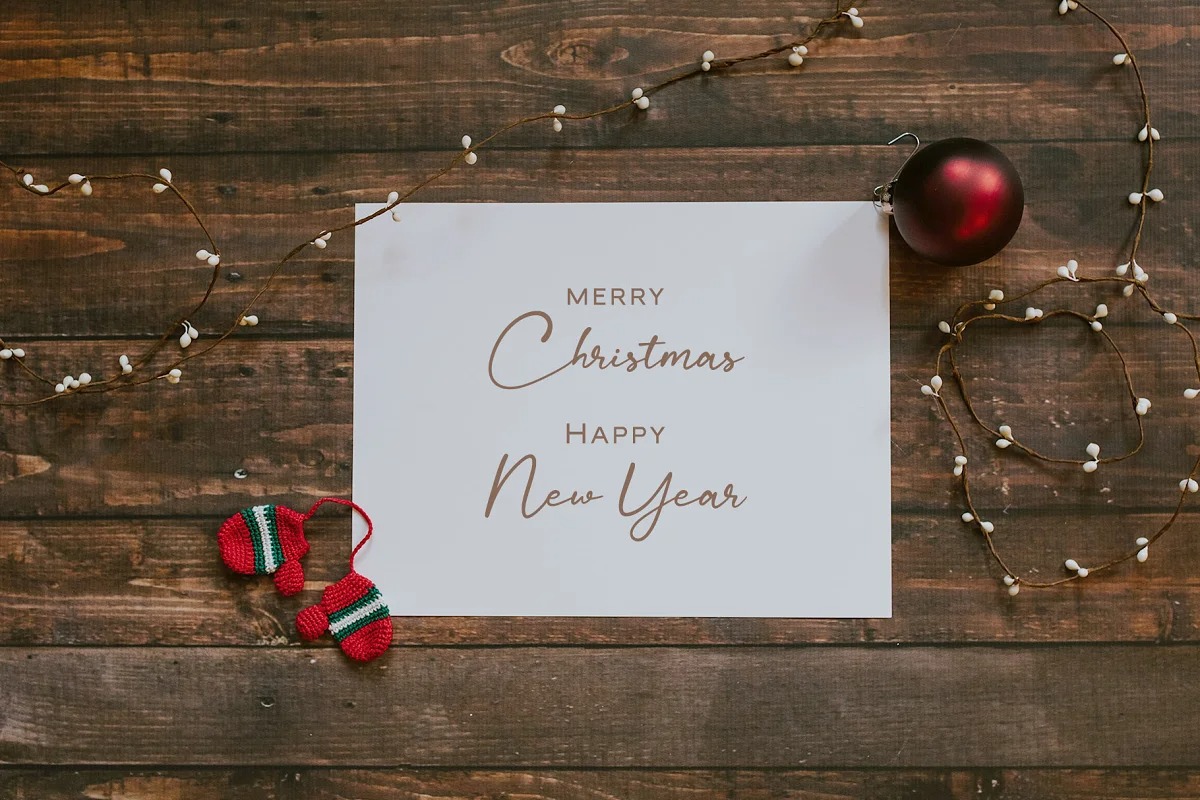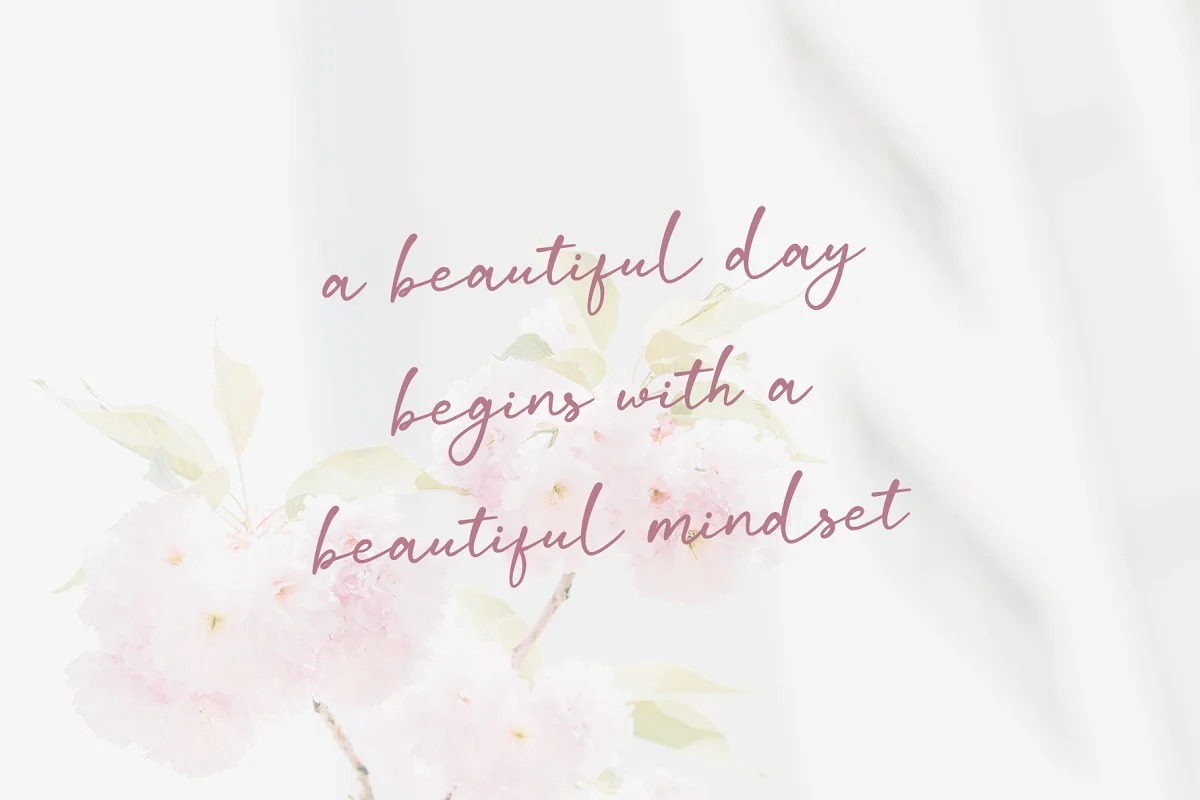
Calaya Font
Calaya Script Font
This is a line font with a feminine and minimalistic style. Made from font designer named Craft Supply Co. Calaya – Lovely Modern Script will work perfectly for fashion, e-commerce brands, trend blogs, wedding boutiques or any business that wants to appear upscale and chic.
Calaya – Lovely Modern Script also Suitable for Logo, greeting cards, quotes, posters, branding, name card, stationary, design title, blog header, art quote, typography, art, modern envelope lettering or book design, happening style like handdrawn design or watercolor design theme, craft design, any DIY project, book title, or any purpose to make your art/design project look pretty and trendy.